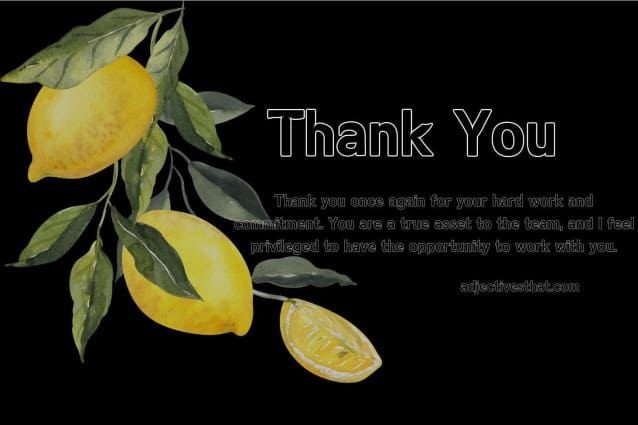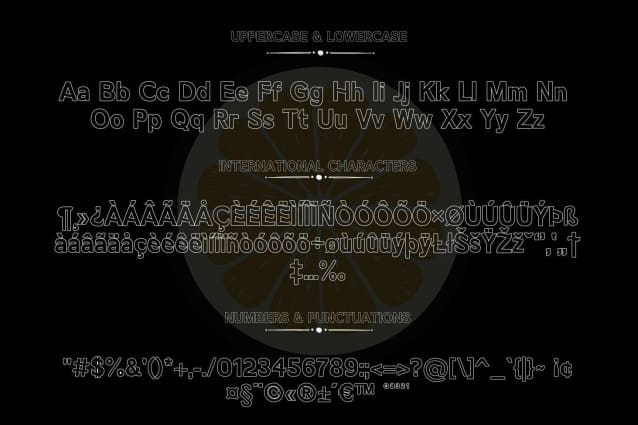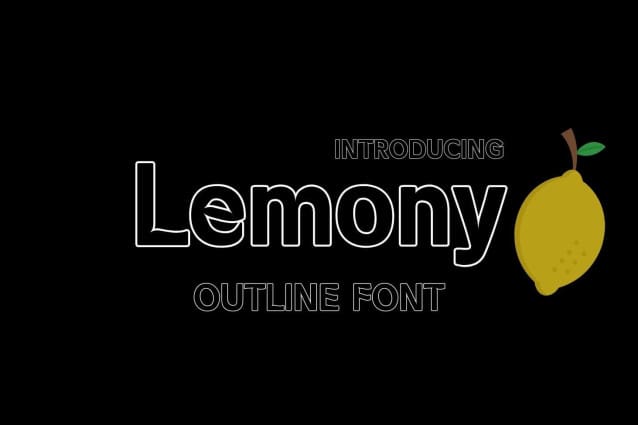
Lemony Outline Font
Lemony Outline Font is a bright and playful font that brings a fresh look to any design. With its bold outline style, this font is simple yet eye-catching, making it ideal for projects that need a feel of fun. It’s perfect for use in headlines, posters, logos, and other designs where you want your text to stand out.